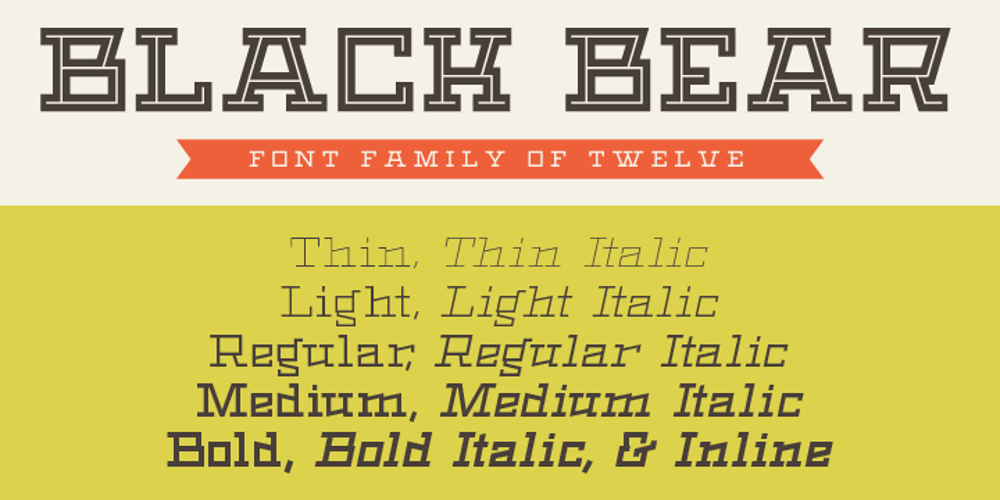
Black Bear Font Family was designed by Alex Sheldon and published by Match & Kerosene. Black Bear contains 12 styles and family package options. Black Bear is a stylish angled monoline font family of twelve styles in six weights. Each font is fully loaded with OpenType stylistic and titling alternates to give the fonts a different feel and help with optics for smaller point sizes.